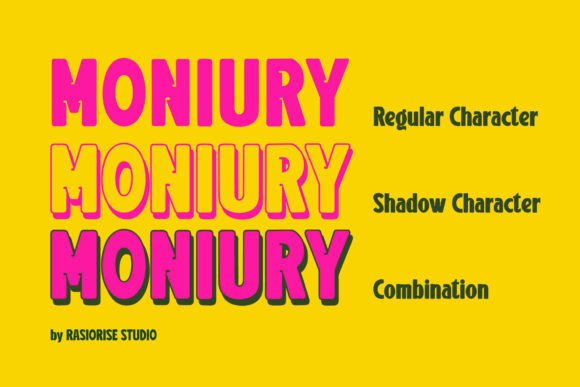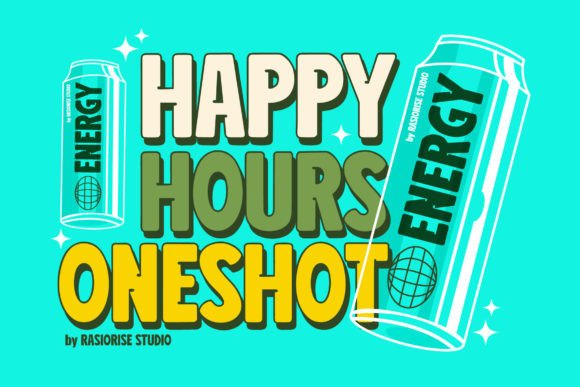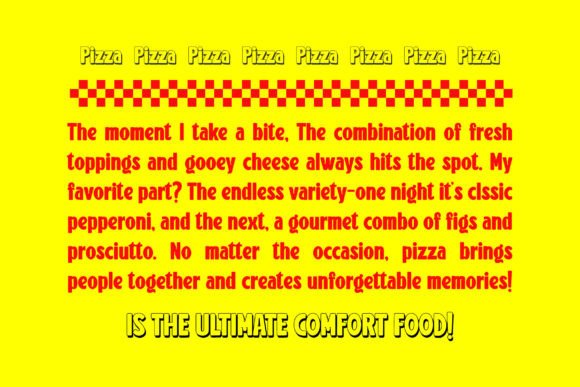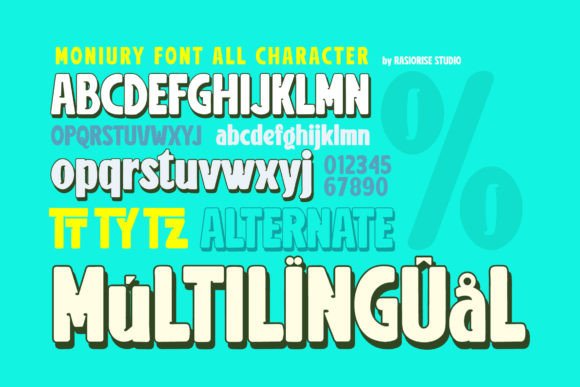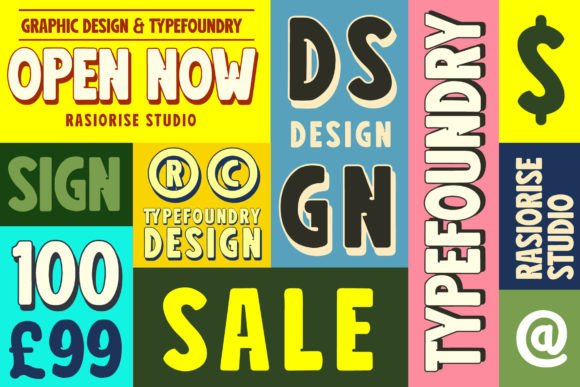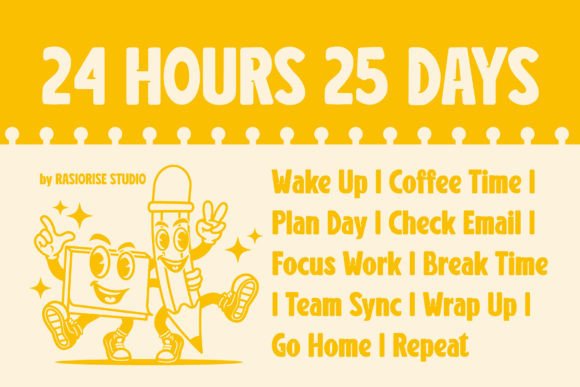
Introduction to Moniury Font
Have you ever stared at a blank canvas, searching for the perfect font to bring your creative project to life? For designers, finding the right typography can be a game-changer. It’s that moment when everything clicks, and your design takes on a personality of its own. That’s exactly what the Moniury Font aims to deliver.
Moniury Font is a Retro Bold Sans-serif font that draws inspiration from classic retro sans-serif styles, blending elements of Montserrat Roman to create a playful and retro vibe. With its slightly rounded edges and cheerful letterforms, this font is not only easy on the eyes but also adds a unique character to your designs.
Key Features of Moniury Font
- Features a transparent background, allowing for seamless integration into any design.
- Moniury Font is designed to be highly versatile, suitable for use in a wide range of applications.
- Includes a comprehensive character set, covering multiple languages and special characters.
Honest Review: Moniury Font
As a designer, I’m always on the lookout for high-quality design resources that can elevate my creative projects. Recently, I had the chance to try out the Moniury Font, and I’m excited to share my honest review.
- The Moniury Font is incredibly versatile and can be used for a wide range of design projects, from logos to typography.
- The font may not be suitable for projects requiring a lot of customization, as it’s a relatively simple design.
- The font may not be as recognizable or attention-grabbing as some other popular fonts.
Common Use Cases for Moniury Font
Moniury Font is perfect for a variety of creative projects, including infographics, brochures, business cards, and social media graphics. Its high quality and transparent background make it an ideal choice for designers seeking a professional and polished look.